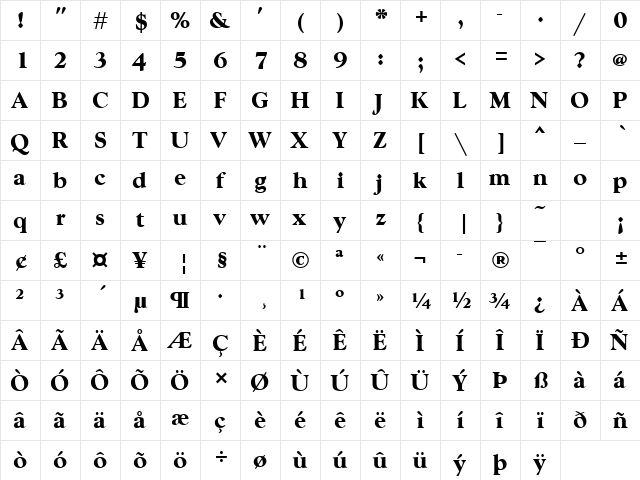
GoudyT Bold
Design Context for GoudyT Typeface
GoudyT is a composed and adaptable typeface that performs quietly and consistently across a wide range of design contexts. The heavy weight commands attention and anchors typographic hierarchies.